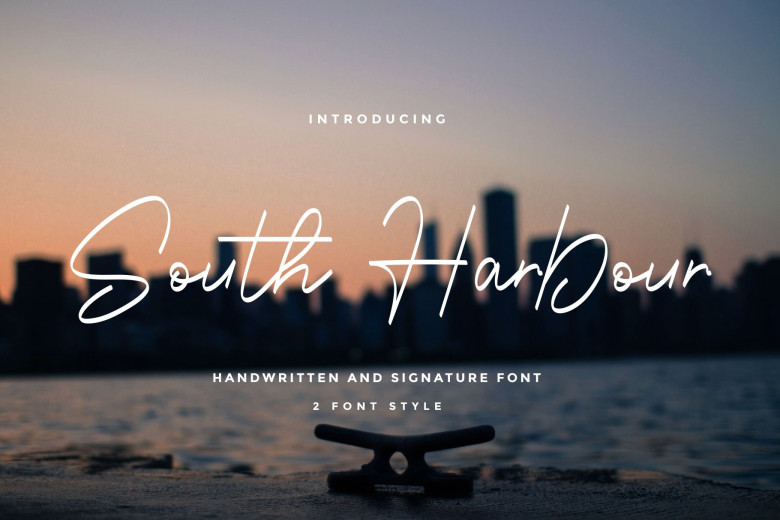
South Harbour Monoline Handwritten Font
South Harbour Monoline Handwritten Font is a signature script font with a natural flow. This font is a good choice for branding, high-end, sophisticated branding design.